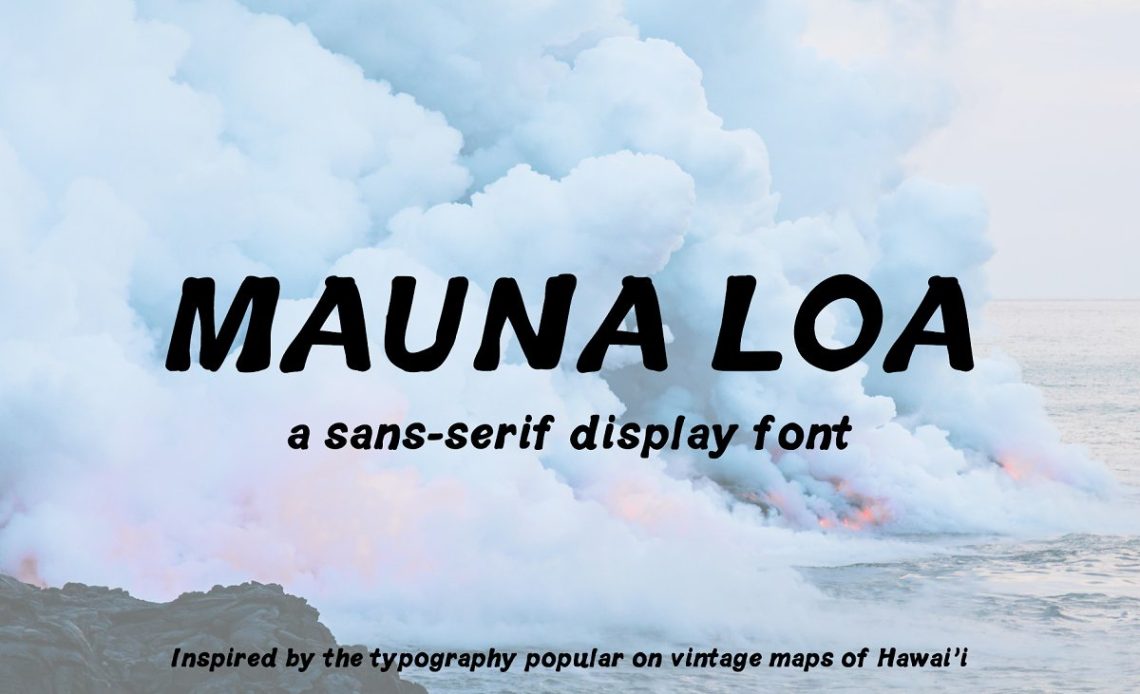
Introducing Mauna Loa, the Vintage Hawaiian Font that will transport you to a tropical paradise with its charming and nostalgic vibe. Created by the talented Kait Kenobi, this hand-made, sans-serif font is inspired by the captivating vintage maps and illustrations of Hawai'i, ensuring an authentic and unique experience.
Imagine yourself strolling along the sandy beaches, feeling the warm breeze against your skin, and sipping on a refreshing cocktail. Mauna Loa captures the essence of summer, bringing back memories of carefree days spent under the sun. Its organic and tropical design will transport you to a world of relaxation and tranquility.
But it's not just about the aesthetics. Mauna Loa is designed to be versatile and practical, ensuring readability both in small and large scales. Whether you're creating a stunning logo, designing an eye-catching poster, or crafting an engaging website, this font will elevate your projects and make them truly stand out.
With a complete set of Uppercase, Lowercase, Numbers, and Punctuation, Mauna Loa gives you the freedom to express your creativity without any limitations. Its clean and crisp lines, combined with the hand-made touch, add a touch of authenticity and character to your designs.